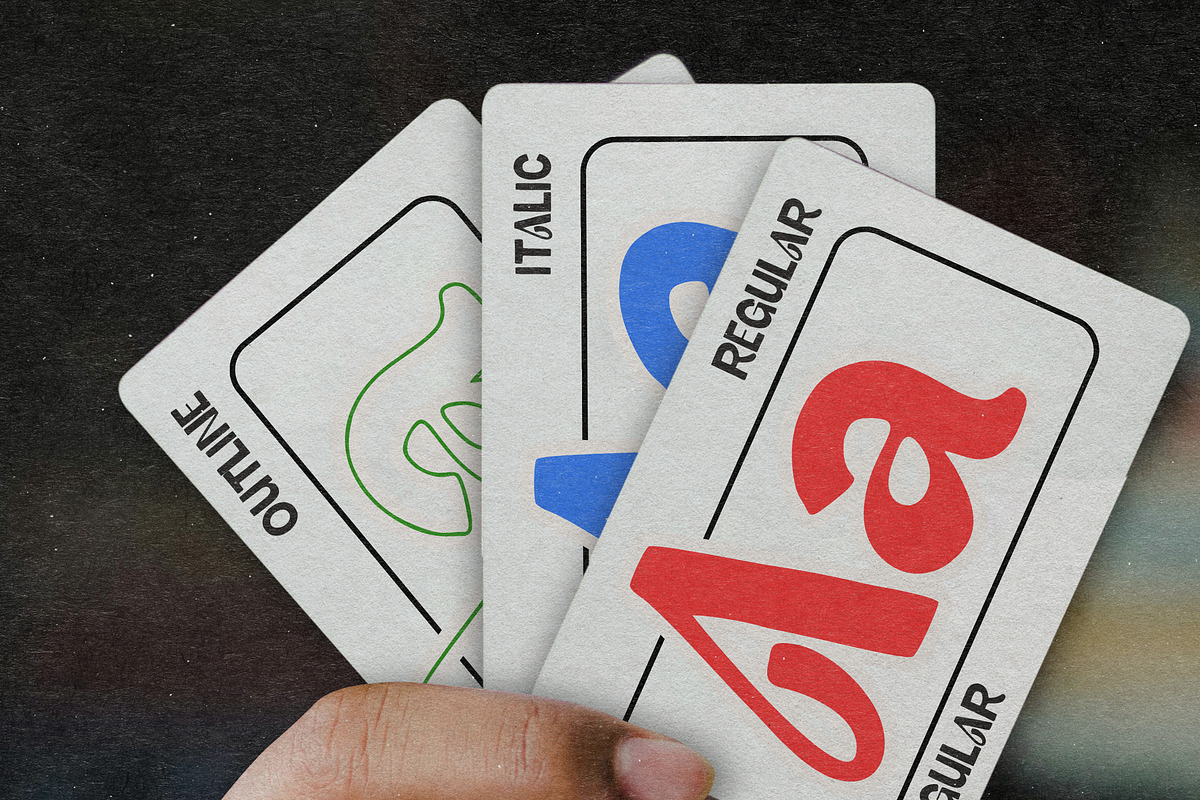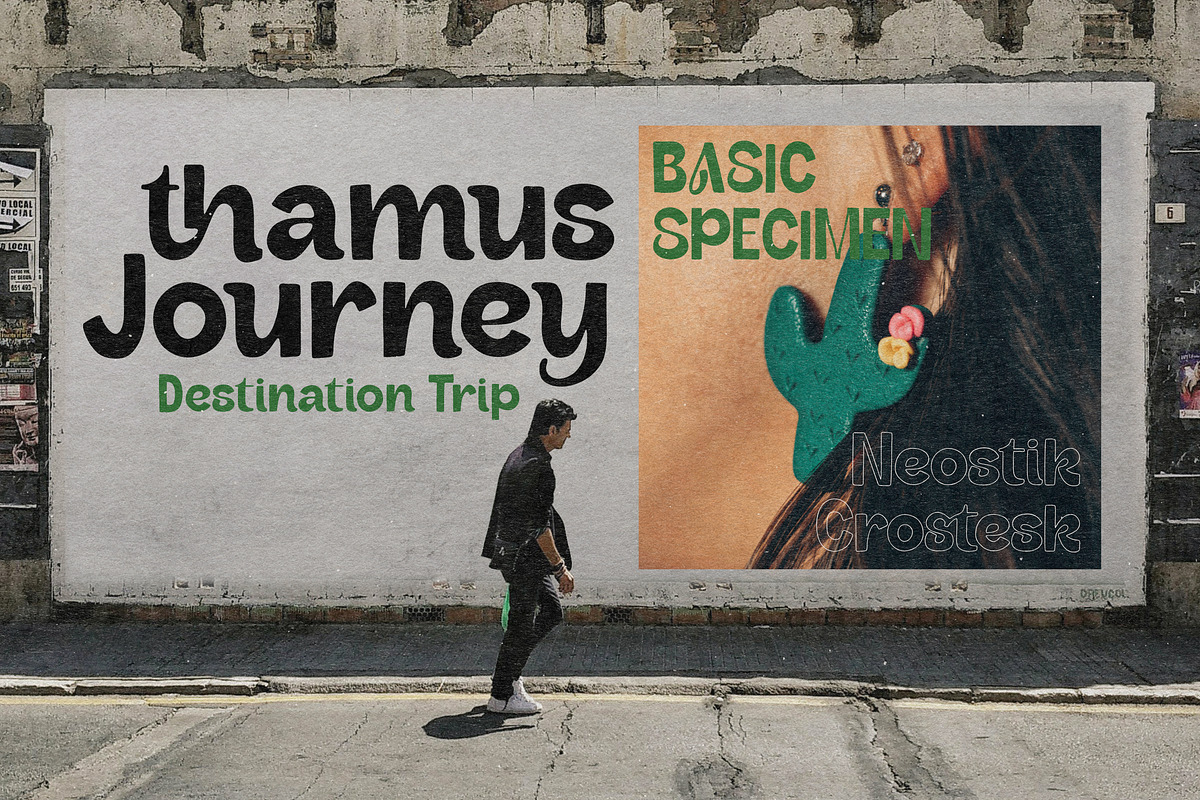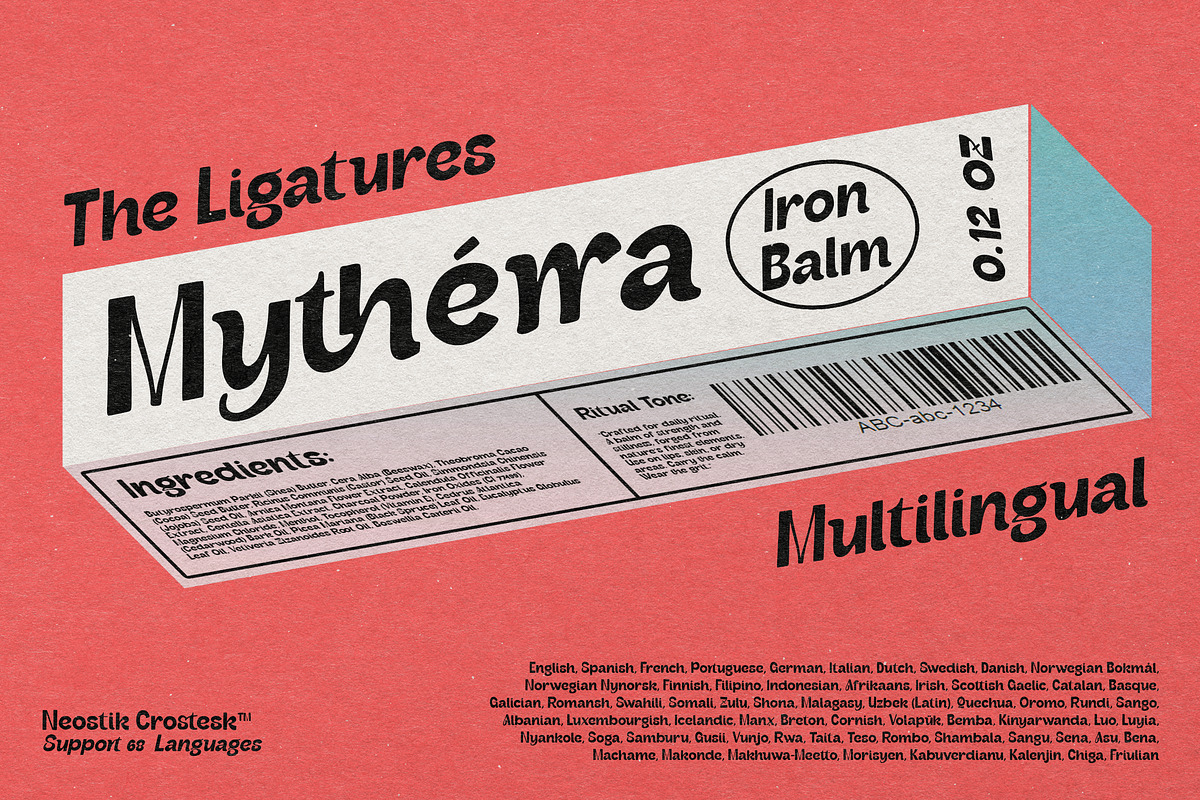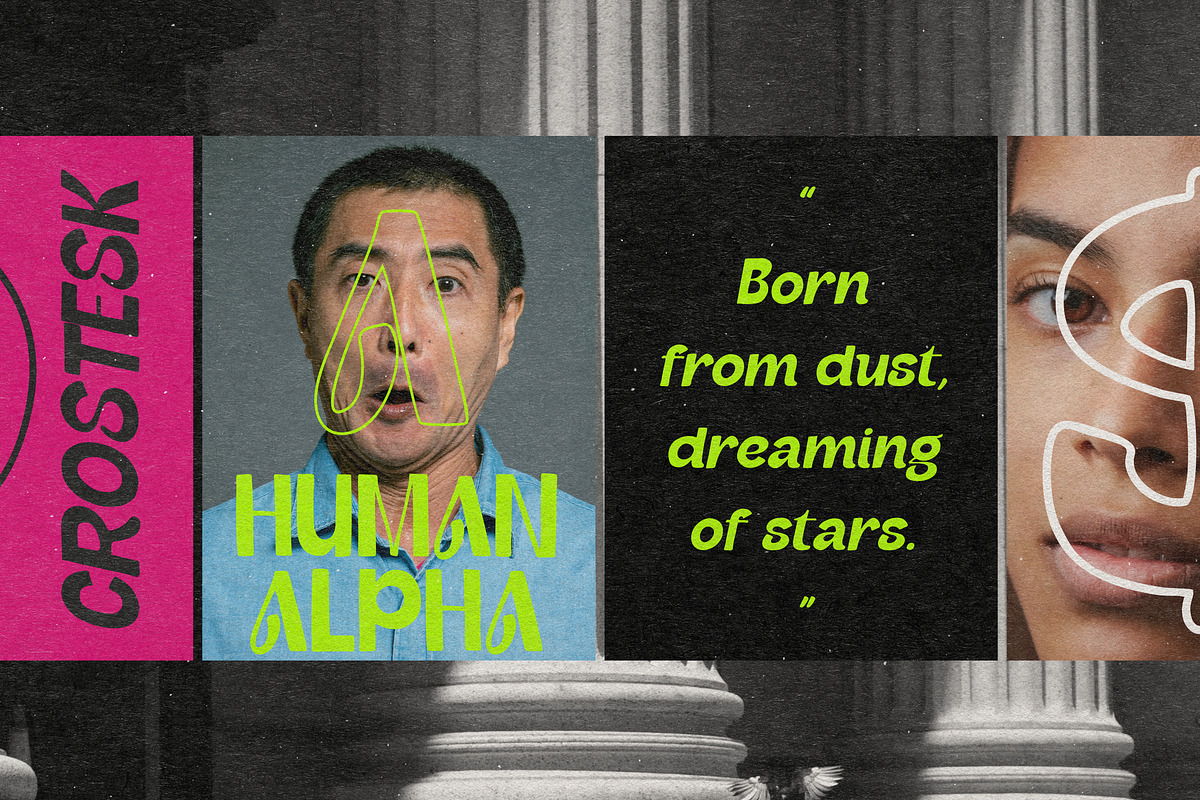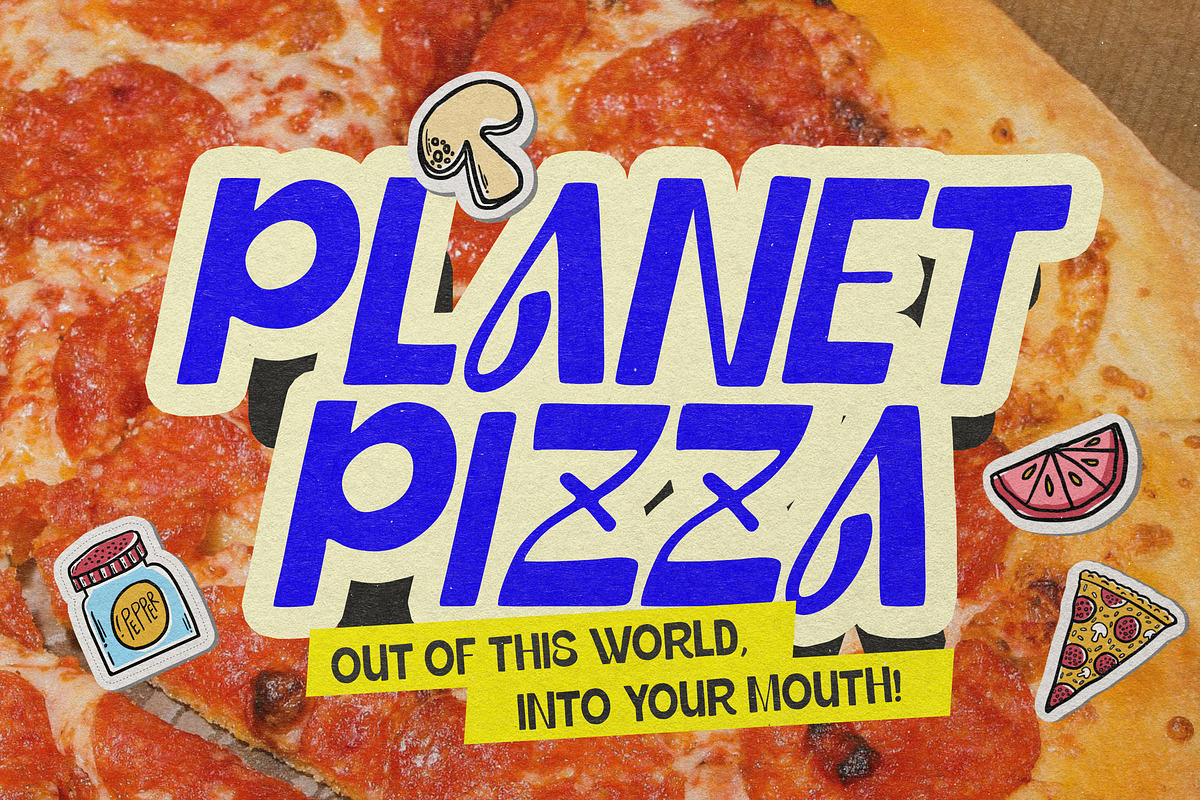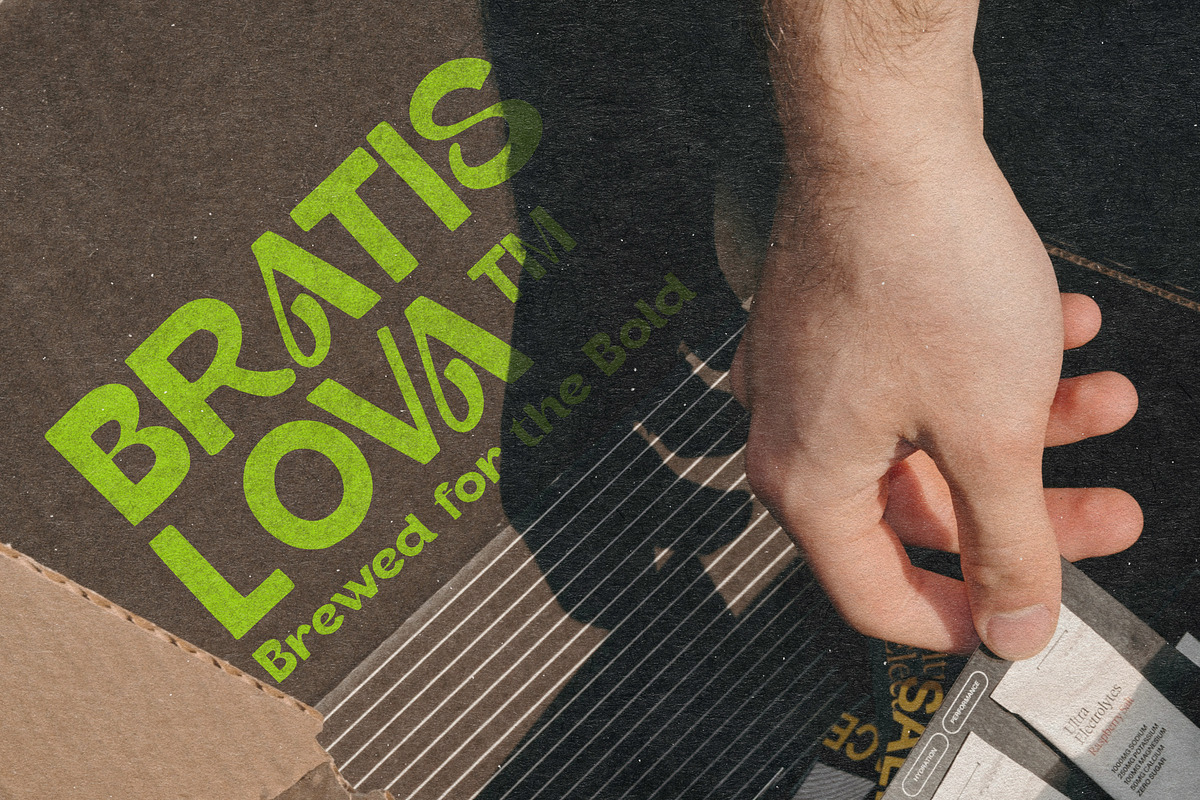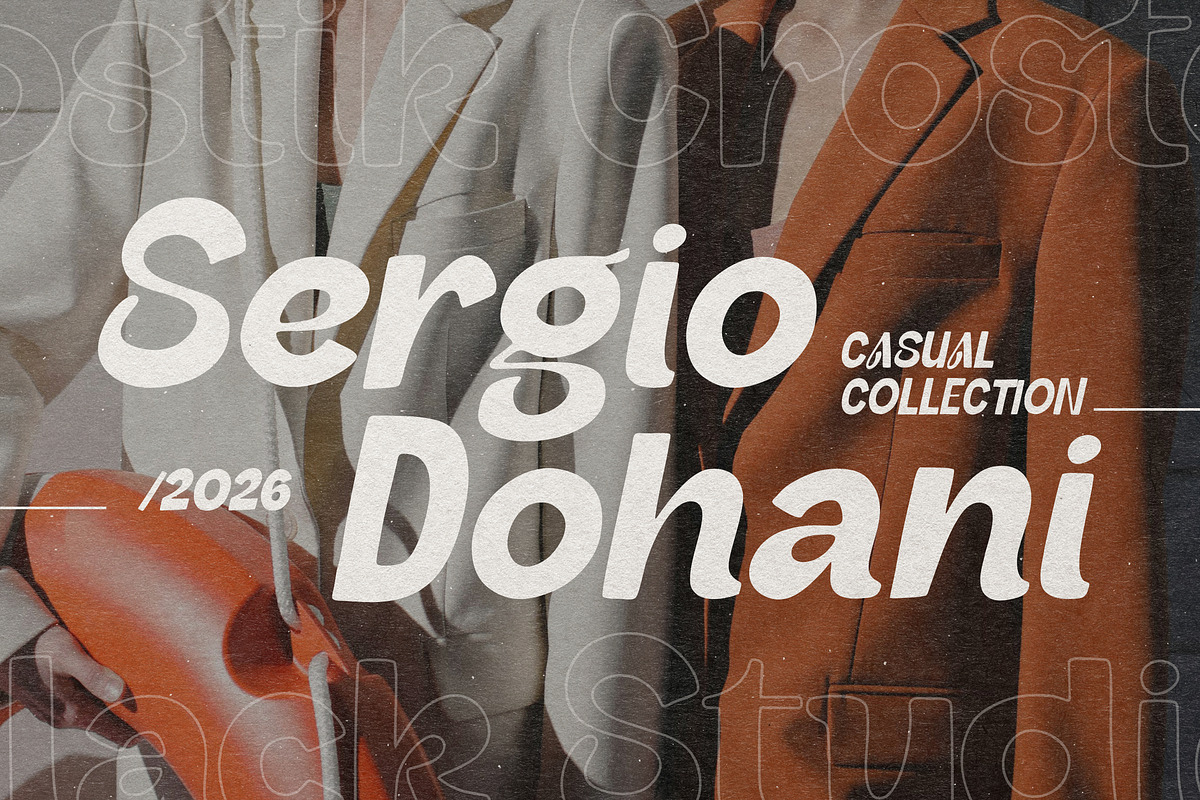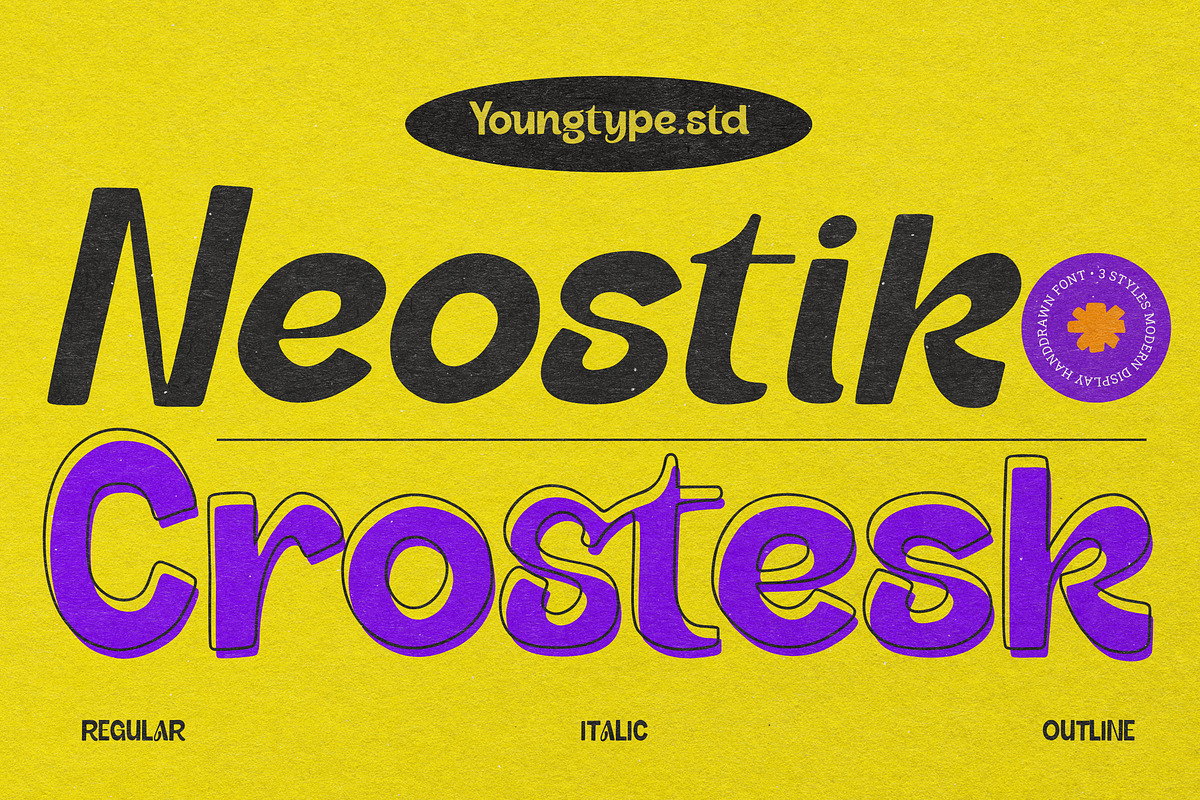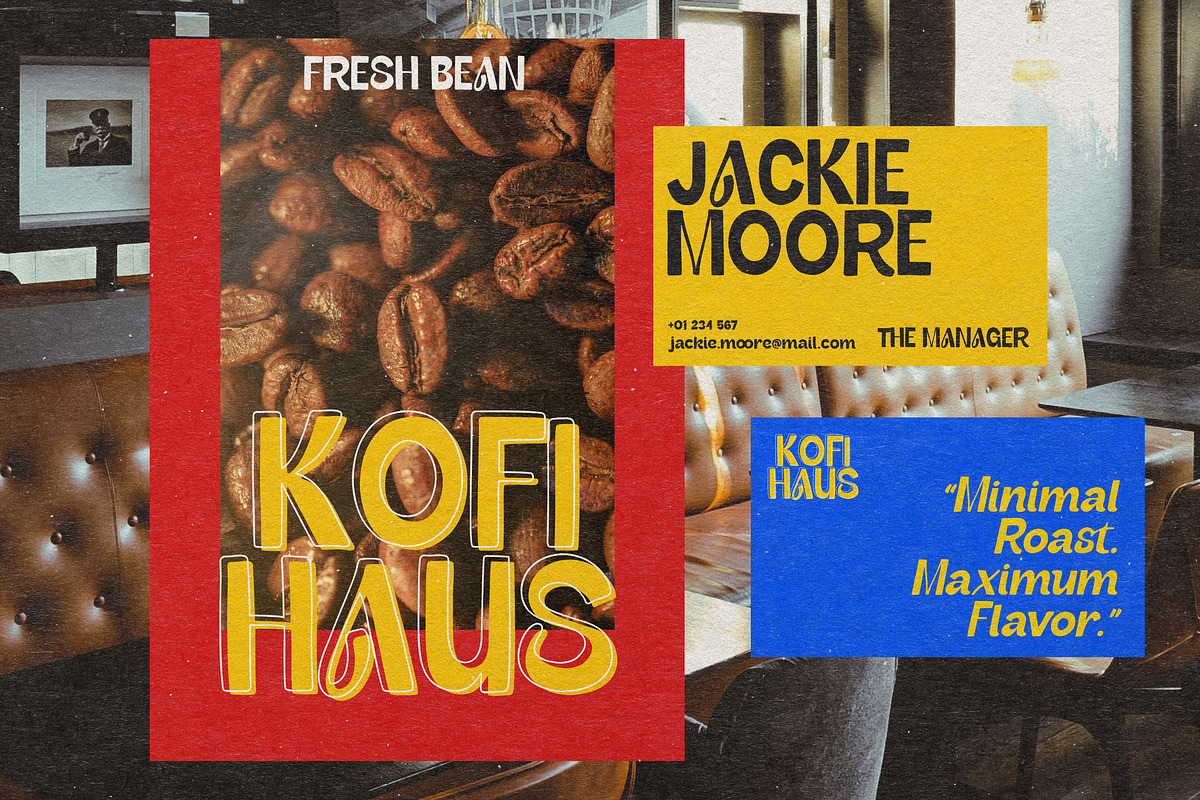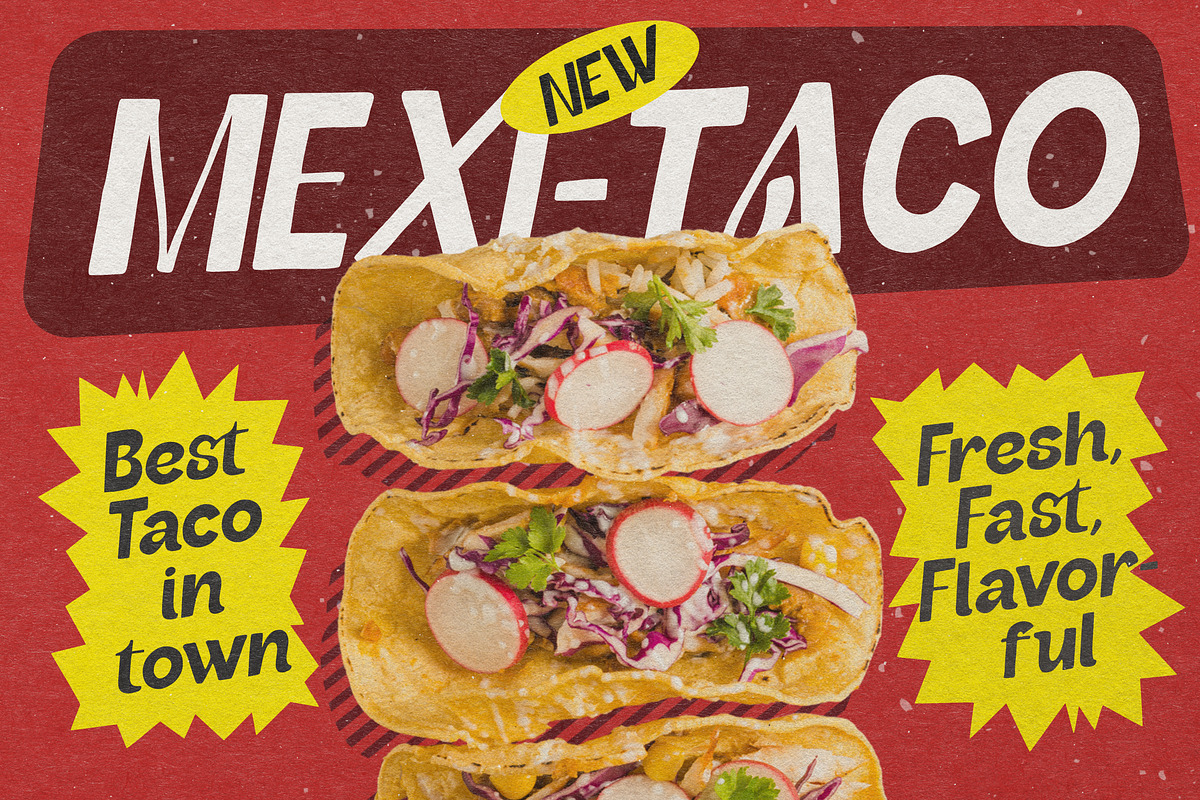
Neostik Crostesk
Neostik Crostesk is a modern, hand-drawn display font family designed by Youngtype.std. It comes in three unique styles — Regular, Italic, and Outline — offering versatility for creative design projects. The font combines a bold, rounded sans-serif look with a playful and artistic touch, making it ideal for posters, headlines, branding, and editorial layouts. The Regular style is clean and solid, Italic adds a dynamic slant for emphasis, and Outline delivers a vibrant, outlined version perfect for eye-catching accents. Its handcrafted character and friendly curves give it a distinctive personality that stands out in modern and retro-inspired designs.